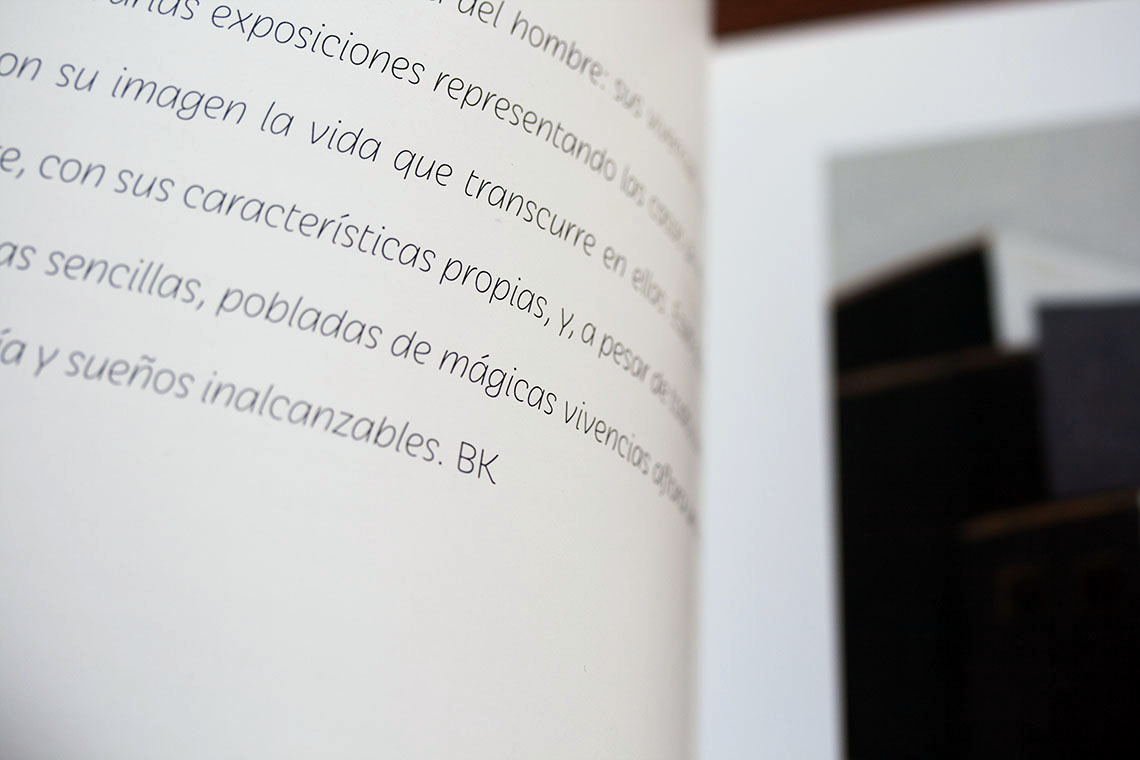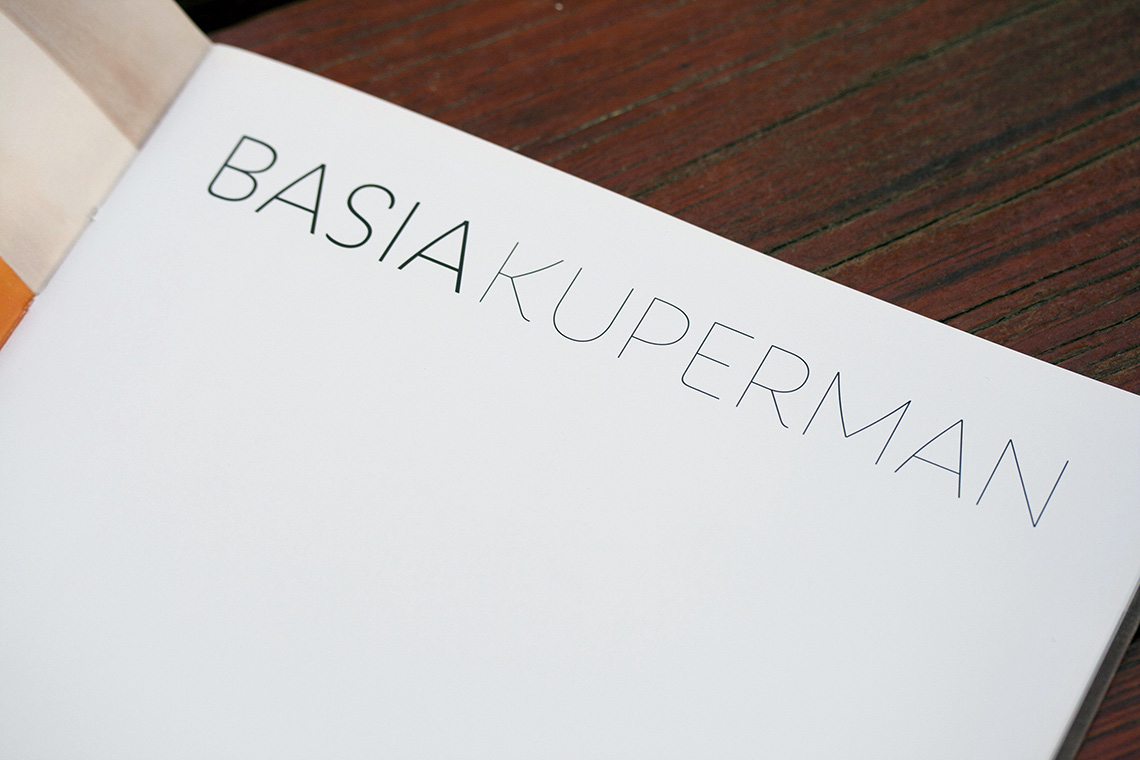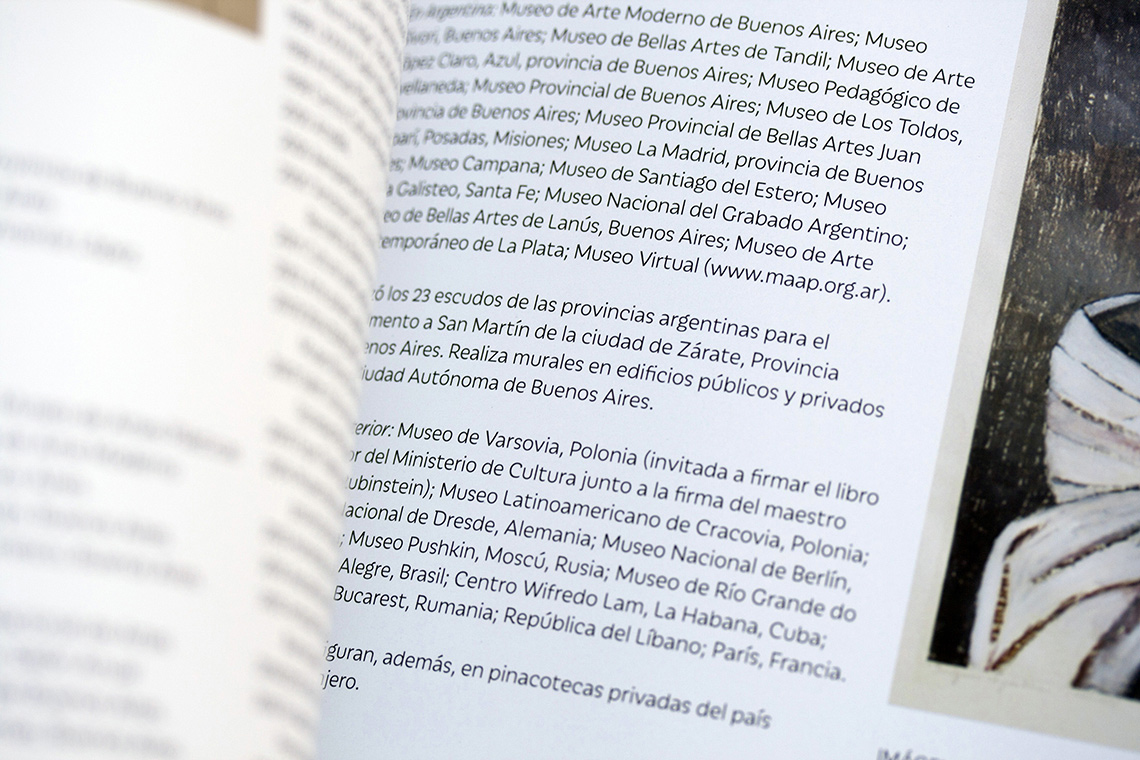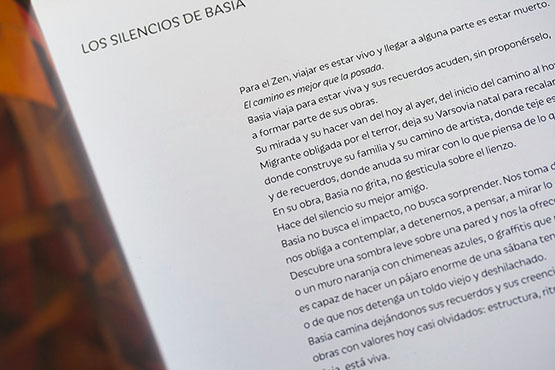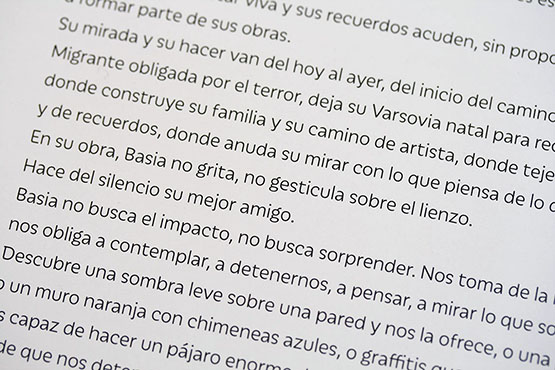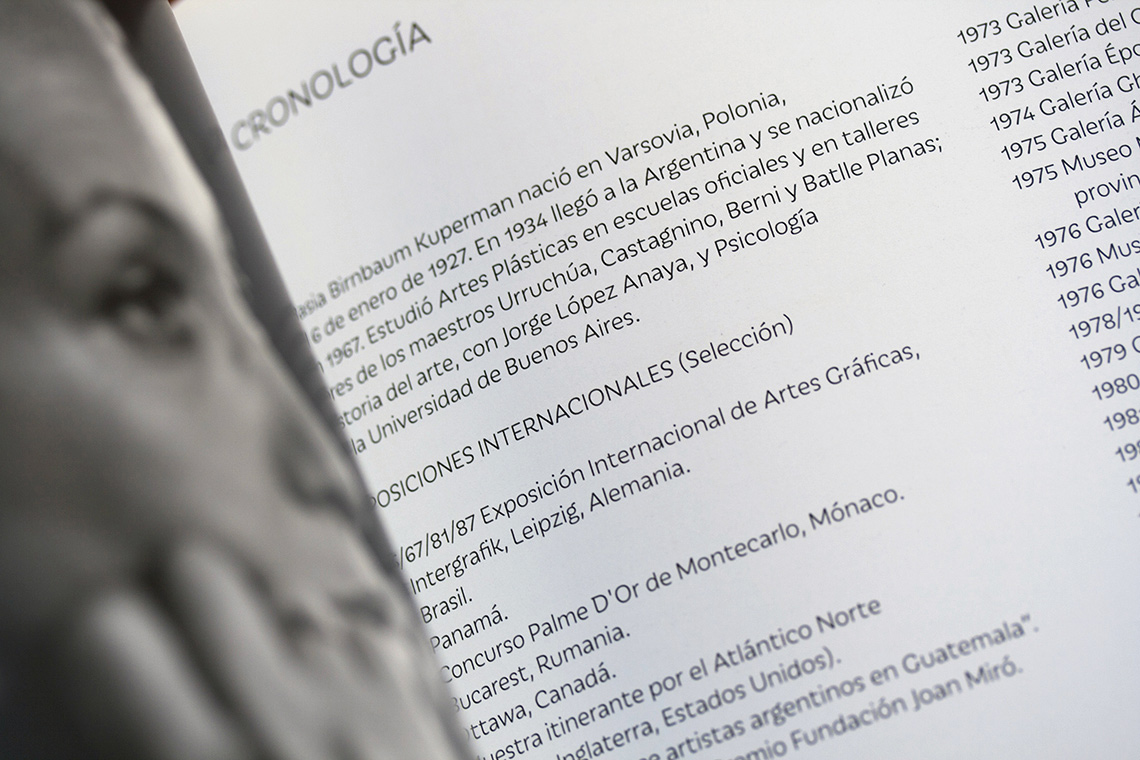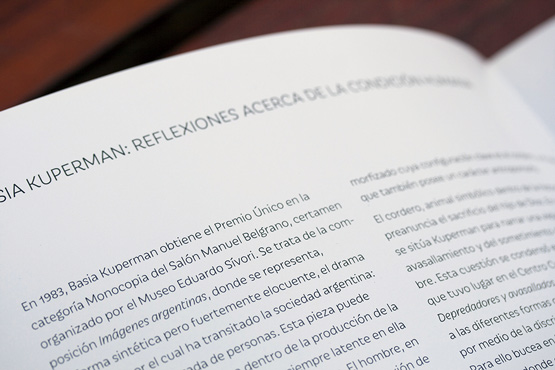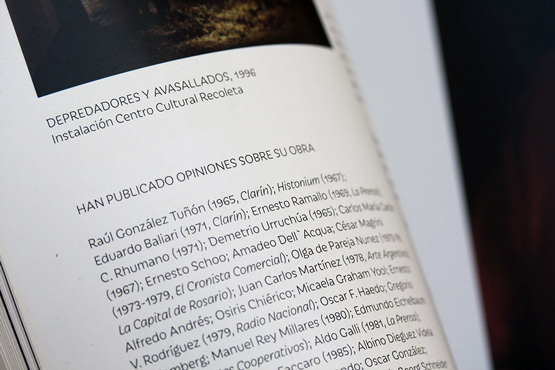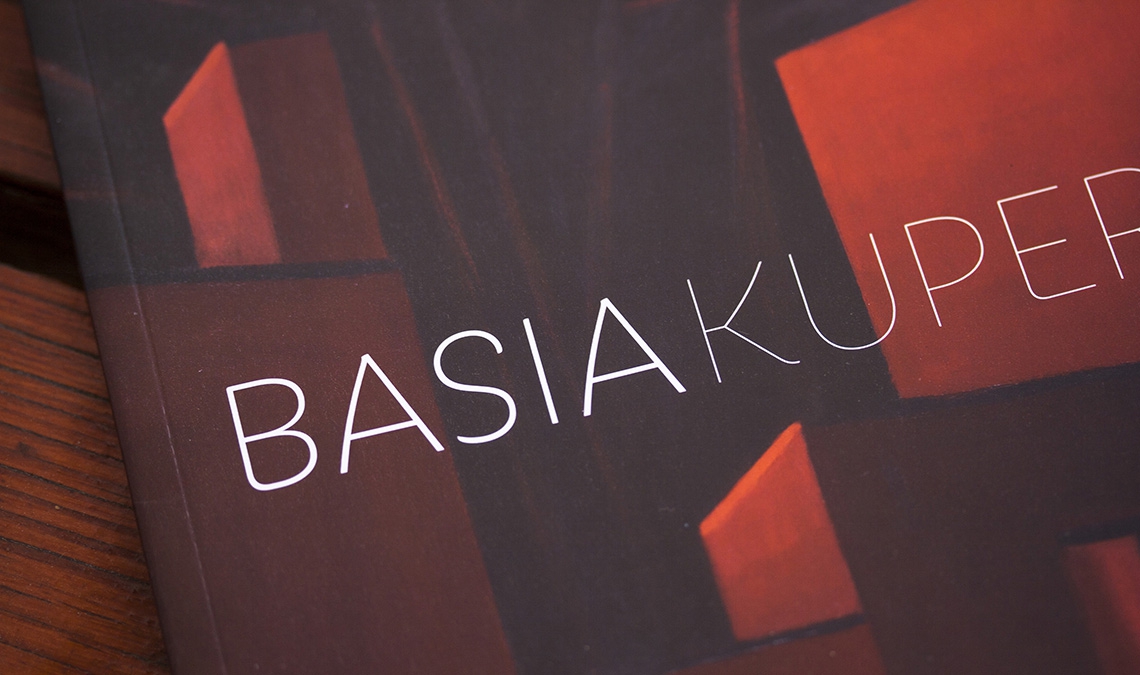
Andando Caminos
The catalogue for the exhibition Andando Caminos, designed by the argentinian designer Juan LoBianco, uses Tom Grace’s Iskra.
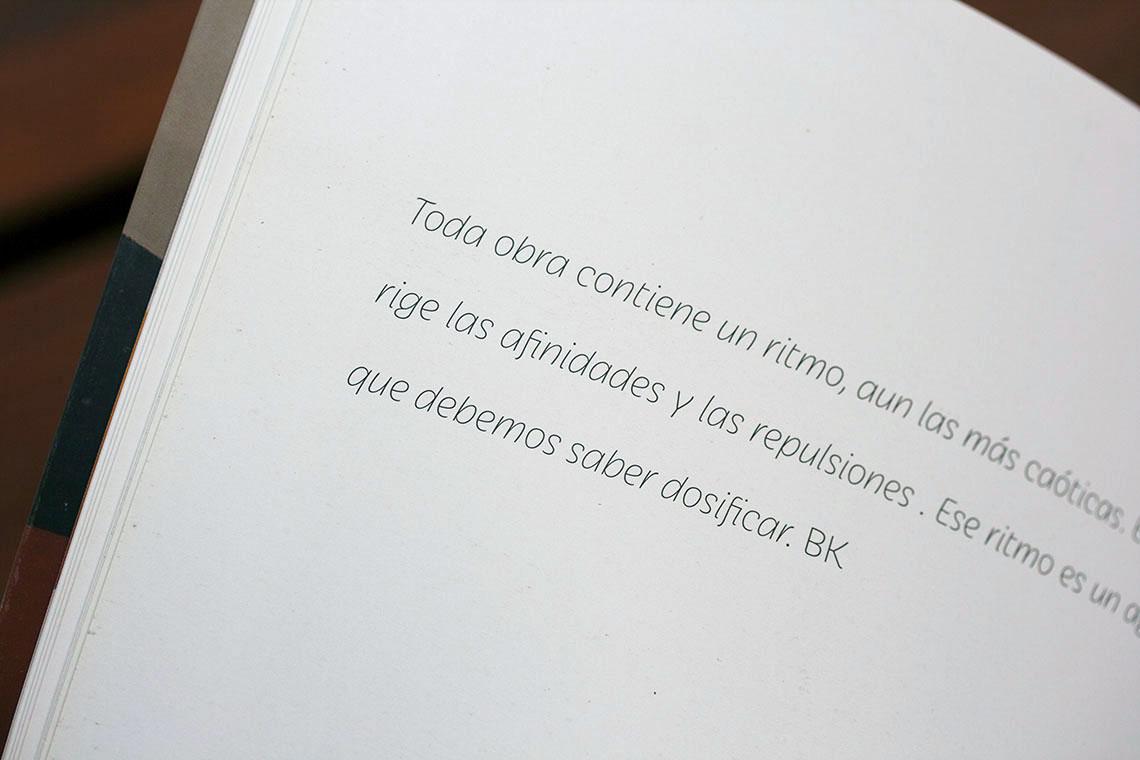
Basia Kuperman was born in Warsaw, Poland, in 1927, but she lived in Buenos Aires since 1934, where she has developed her artistic and personal life. Last August, the Museo de Artes Plásticas Eduardo Sívori (Buenos Aires, Argentina) organised the exhibition ‘Andando Caminos’, displaying Kuperman’s work.
Renowned Argentinian designer Juan LoBianco lead the team responsible for the catalogue design. Tom Grace’s font Iskra was used throughout the publication, in its thinner weights, creating a harmonious rhythm.